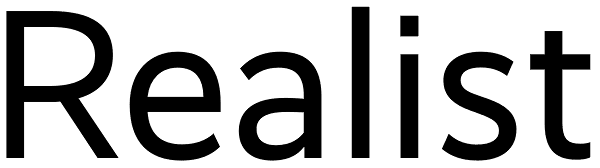
Realist
Realist is a straightforward typeface that speaks in a clear voice without appearing stern. It has so far been used for demanding editorial and corporate design, as well as product design and a film poster. It works for all expressions where the...